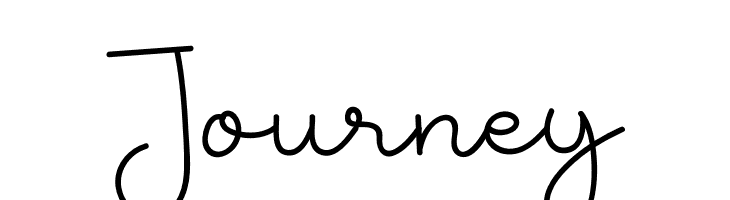
( Fonts by selawetype )
Playful and bold font with angular shapes.
( Typhoon Type - Suthi Srisopha - www.typhoontype.net )
A bold, expressive script font with a hand-drawn calligraphic style.
Cartoonish, prank-themed illustrative font with each character as a unique comic drawing.
( Fonts by Andi Moz )
A playful, handwritten font with tall, narrow characters and whimsical loops.
A bold, playful handwritten font with thick strokes and unique character shapes.
( Fonts by Zdenek Gromnica - www.futuremillennium.com )
A bold, geometric font with a modern and futuristic style.